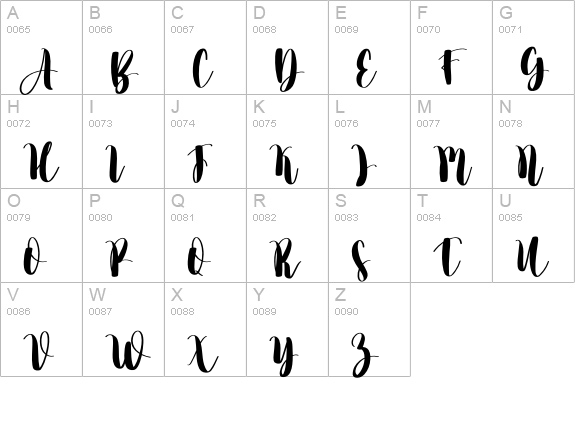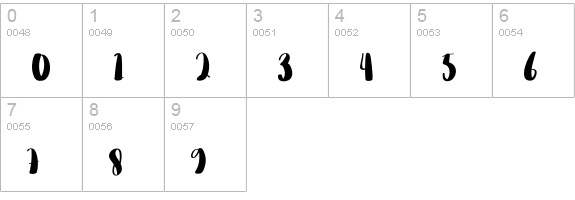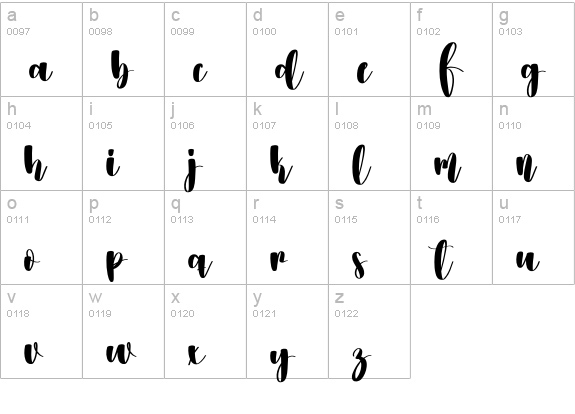
Videography Font Details
Videography is a free for personal use font in the Script > Handwritten category, designed by scratchones. It has been downloaded 6 times and is available for Windows, Mac and Linux.
Introducing Videography font, a sleek and modern typeface designed specifically for video content creation. This versatile font is perfect for adding a professional touch to your video projects, whether you're working on a vlog, tutorial, or promotional video. With its clean lines and contemporary aesthetic, Videography font is sure to make your text stand out and grab your audience's attention.